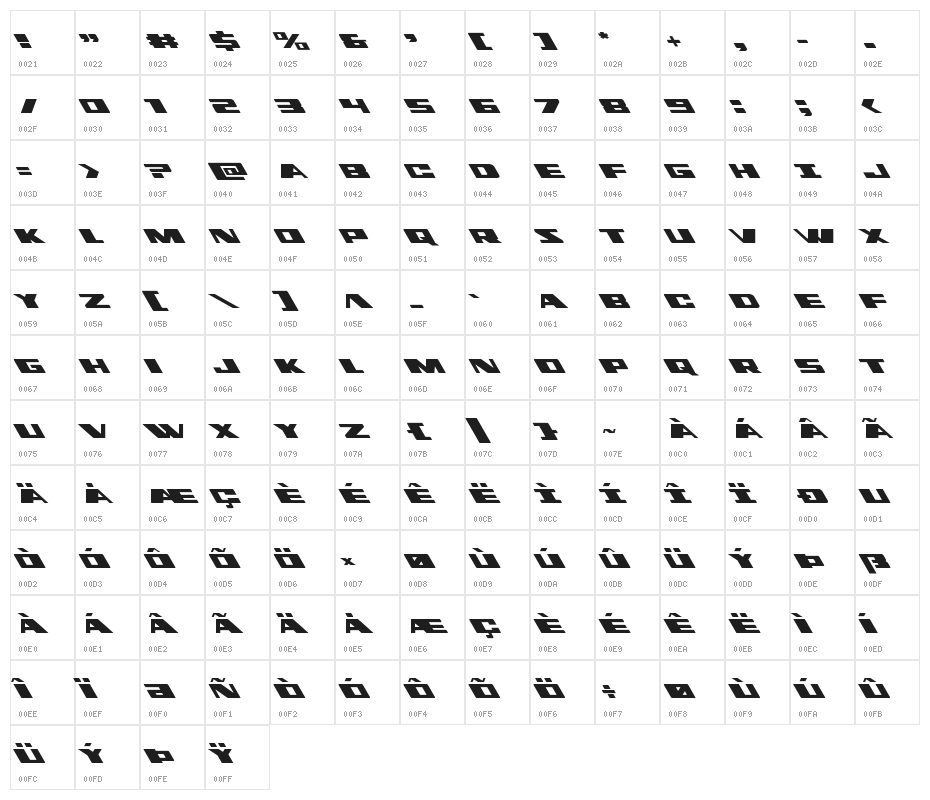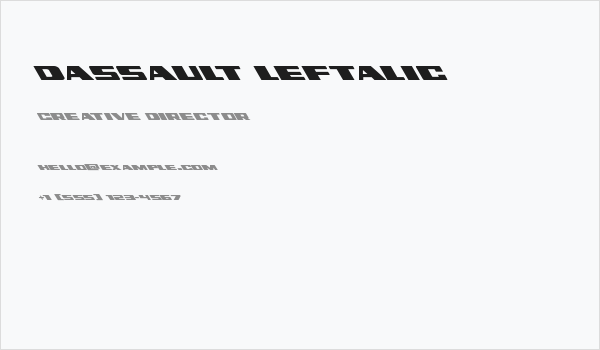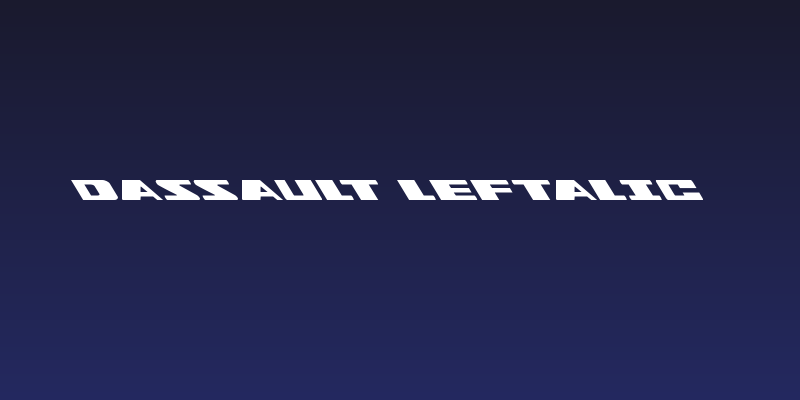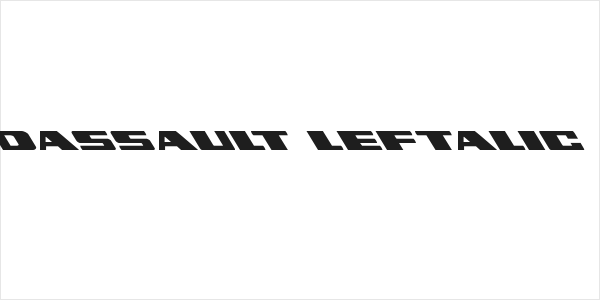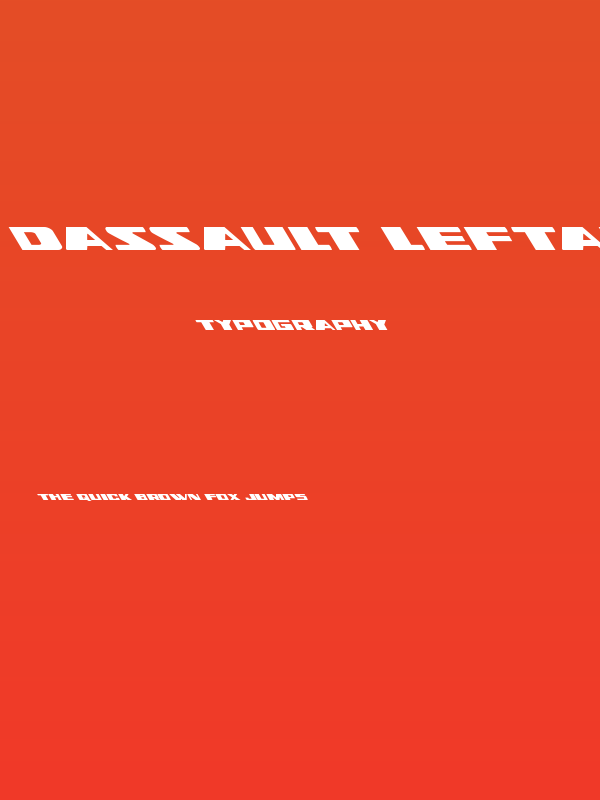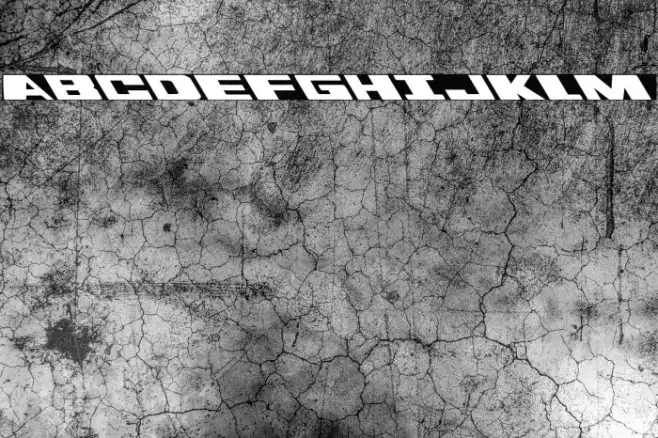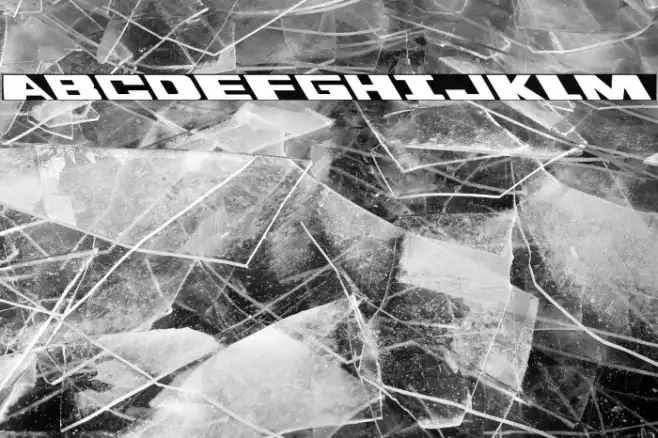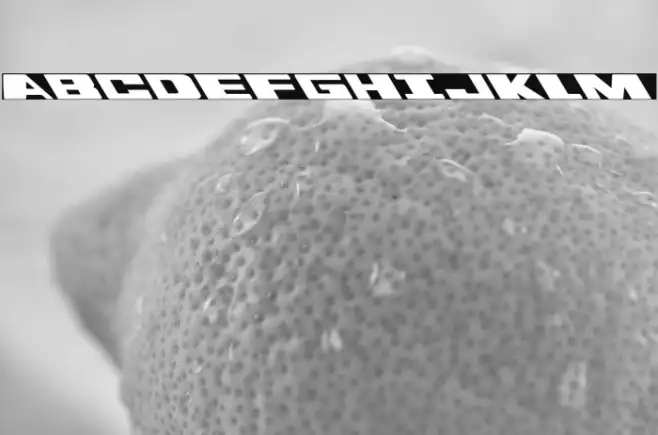
Dassault Leftalic Font
Dassault Leftalic Description
This font features a bold and dynamic style with a distinct slant to the left, giving it a sense of motion and energy. The characters are wide and angular, with sharp edges and a futuristic appearance. The uppercase and lowercase letters maintain a consistent style, while the numbers and special characters are designed to match the overall aesthetic. The font's strong presence makes it suitable for impactful designs.
| Proposed Projects | Ideal for sports branding, automotive designs, video game titles, and sci-fi themed projects. |